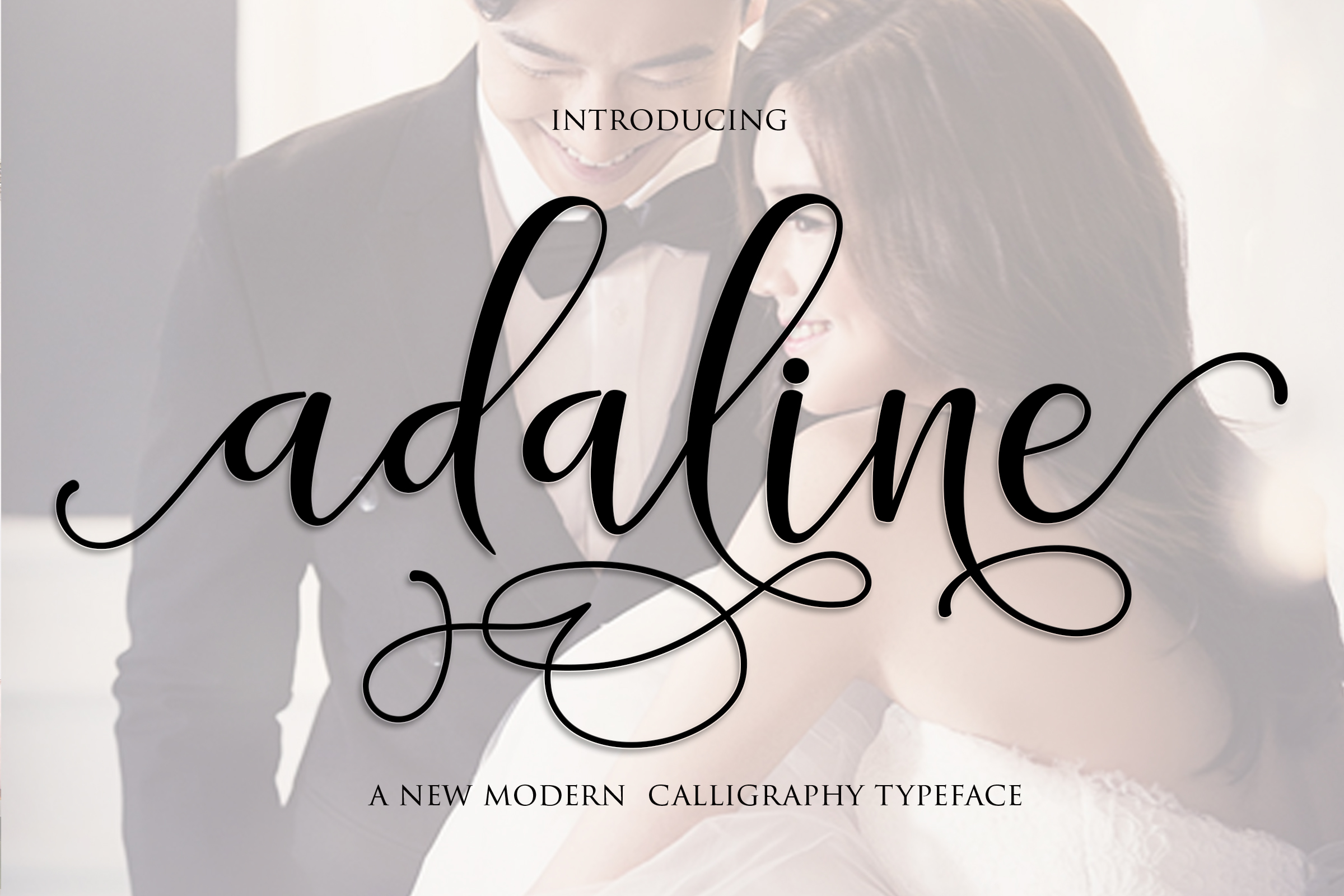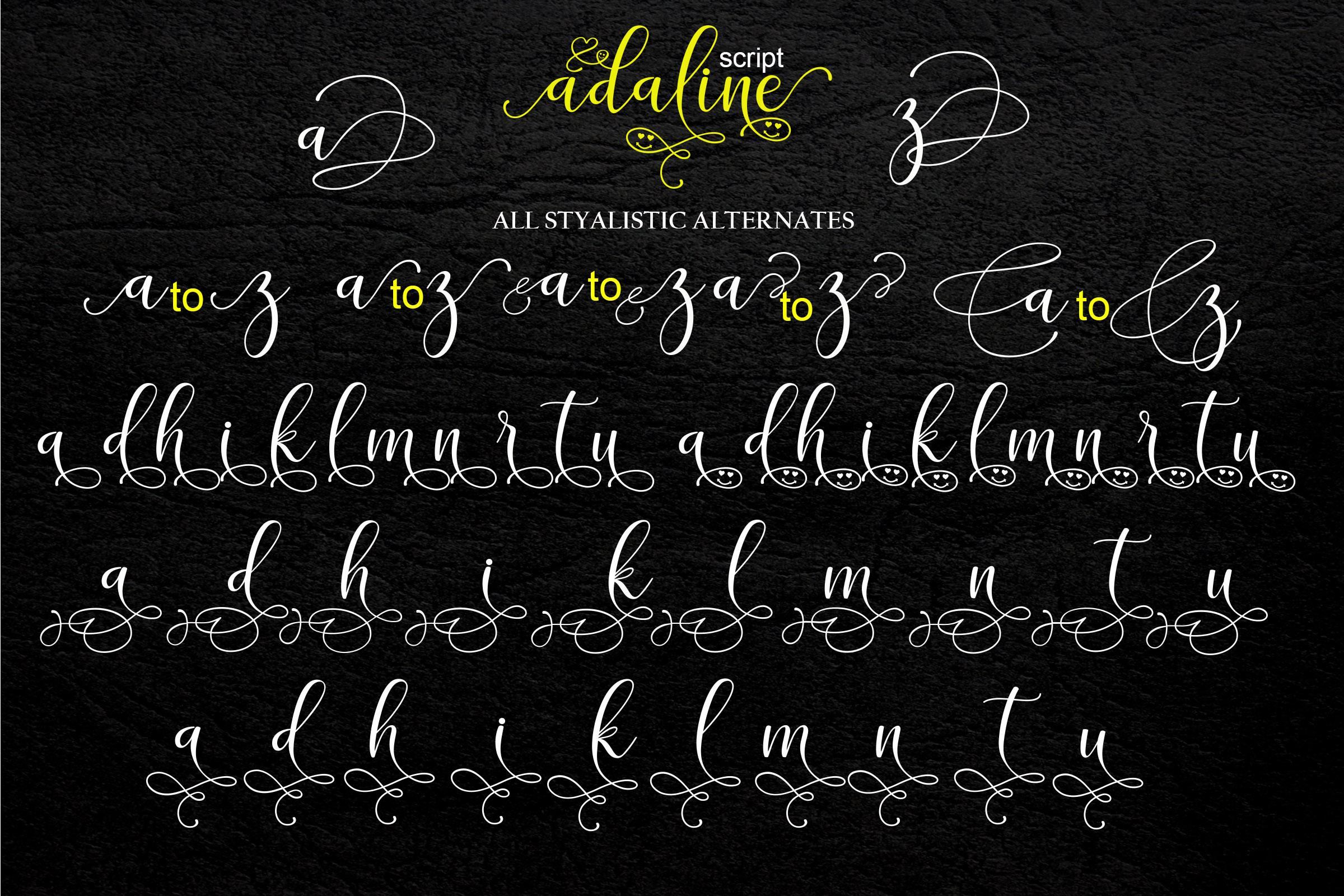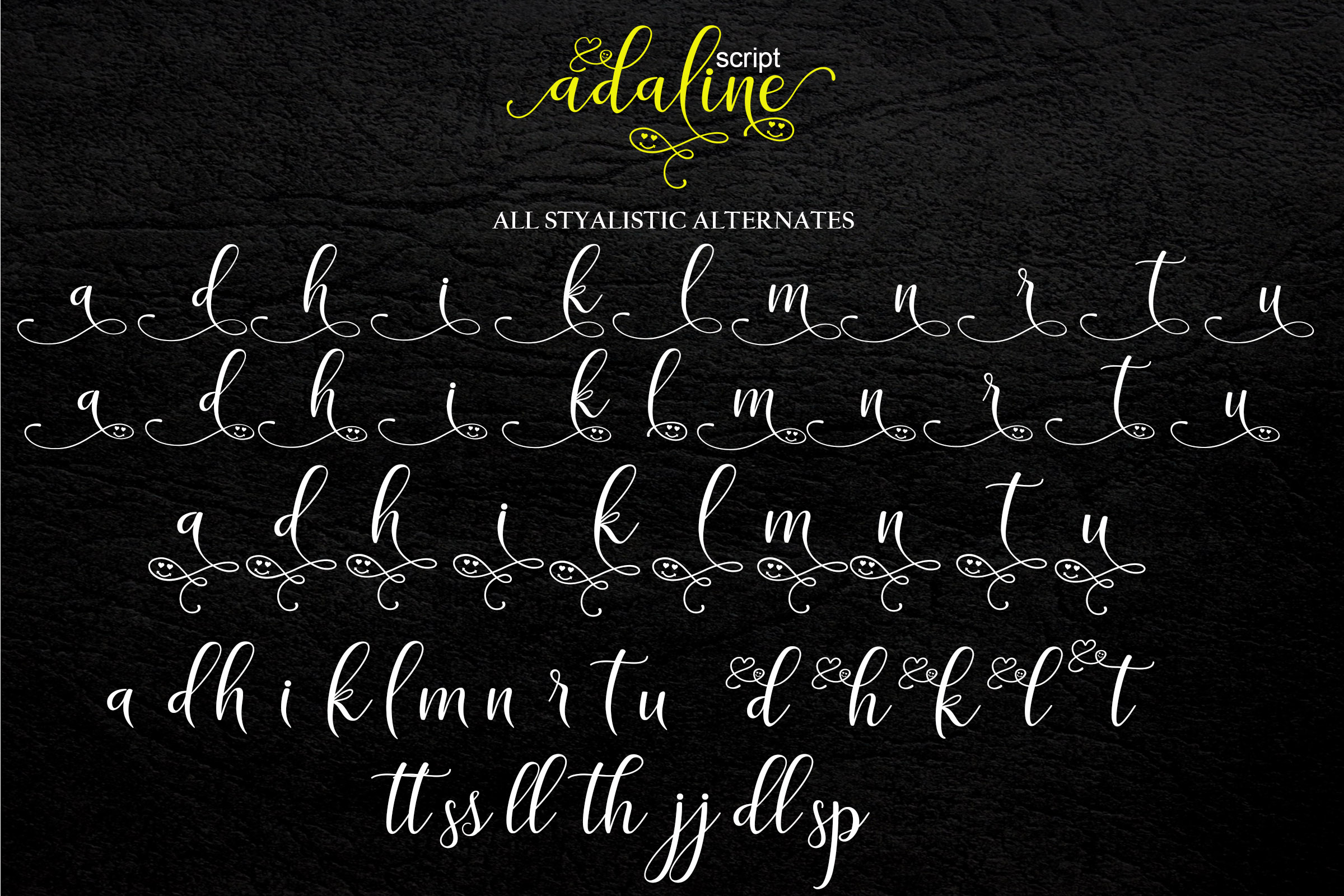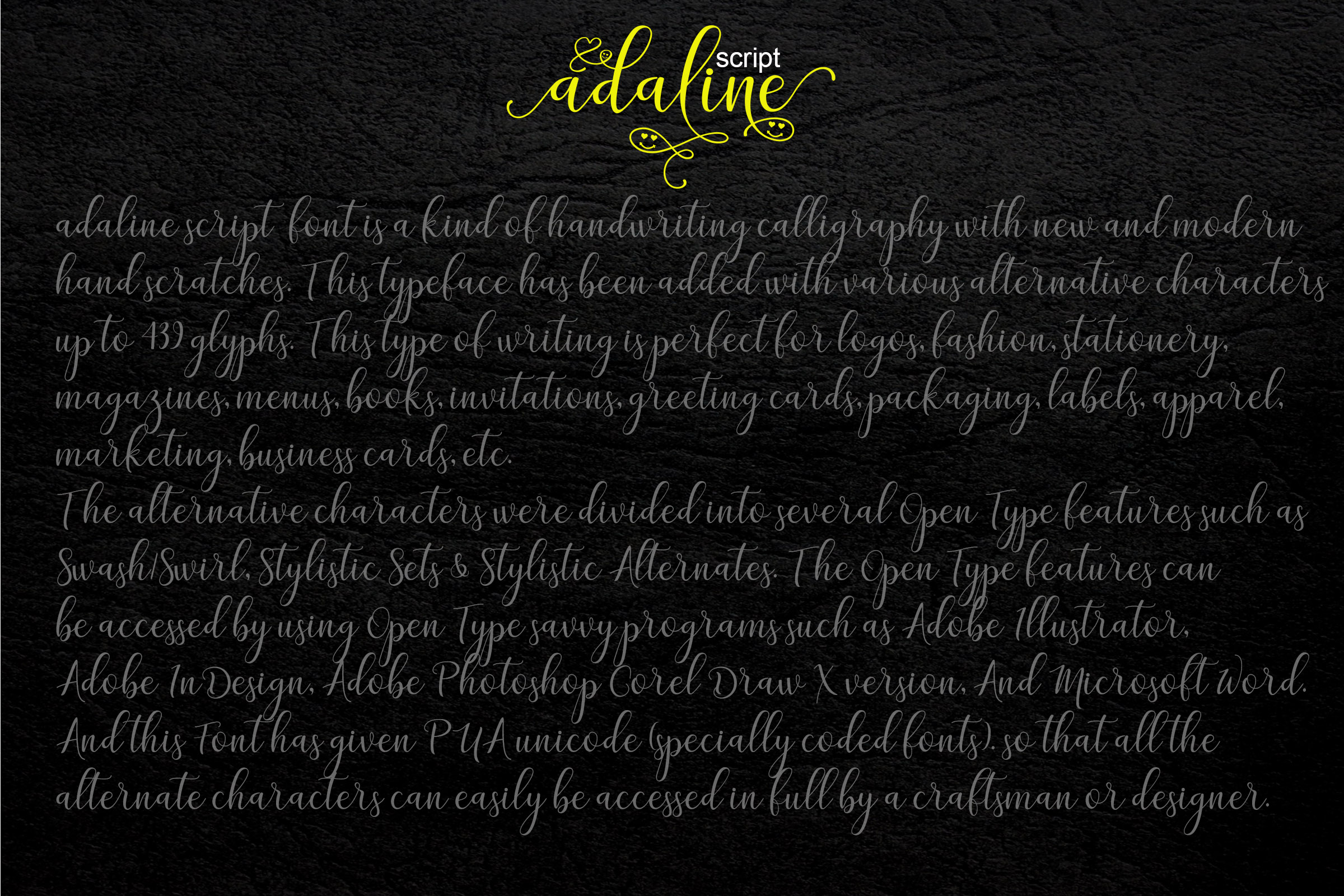
About Adaline Font
The Adaline Script is a new, fresh & modern script with a handmade calligraphy style. It features decorative characters and a dancing baseline!
It works great for many different uses, such as invitations, greeting cards, branding materials, business cards, quotes & posters, lettering and much more.
It’s packed with over 500 unique glyphs.